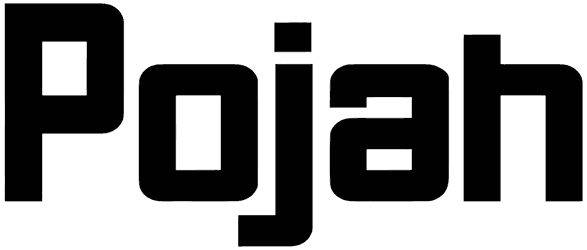
Pojah Font
With smooth lines and unadorned simplicity, Pojah can convey an impactful message with extreme clarity. In a world where we are bombarded by information from every angle, this sans serif font cuts through the noise.
So, it’s perfect for branding, advertising, and any situation where you want your message to be heard loud and clear. So the next time you need to make an impact with your words, look to Pojah to become your secret weapon to stand out in a crowded world.